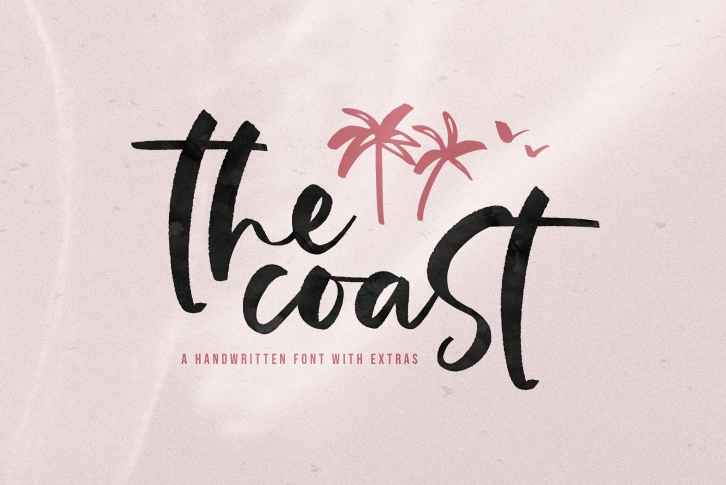
The Coast - Handwritten Script Font with Extras Download
The Coast is a great font that was designed by KA Designs. Imagine the amount of combinations you can create using this font! The archive is 5.55 MB and it was released on April 5, 2020. The Coast looks beautiful on wedding invitations, greeting cards, logos, posters, labels, t-shirt designs, logos, business cards and is perfect for use in ink or watercolor works, fashion, magazines, packaging and food menus, children's books and more!